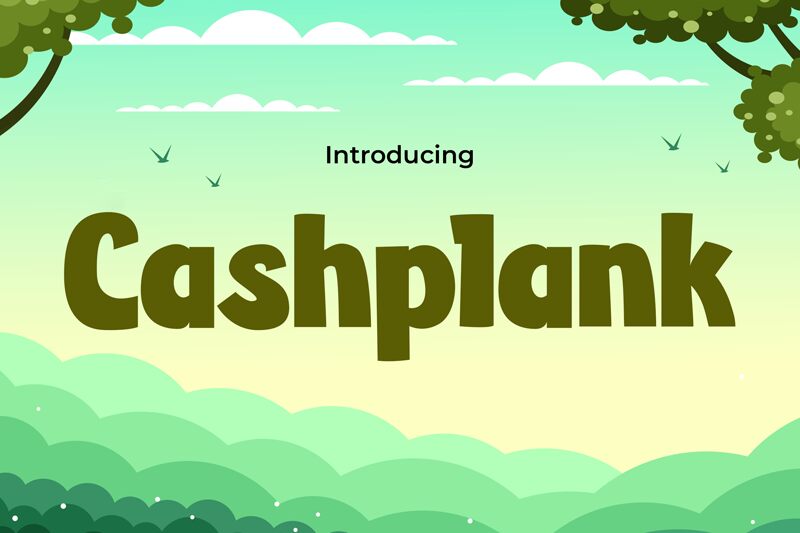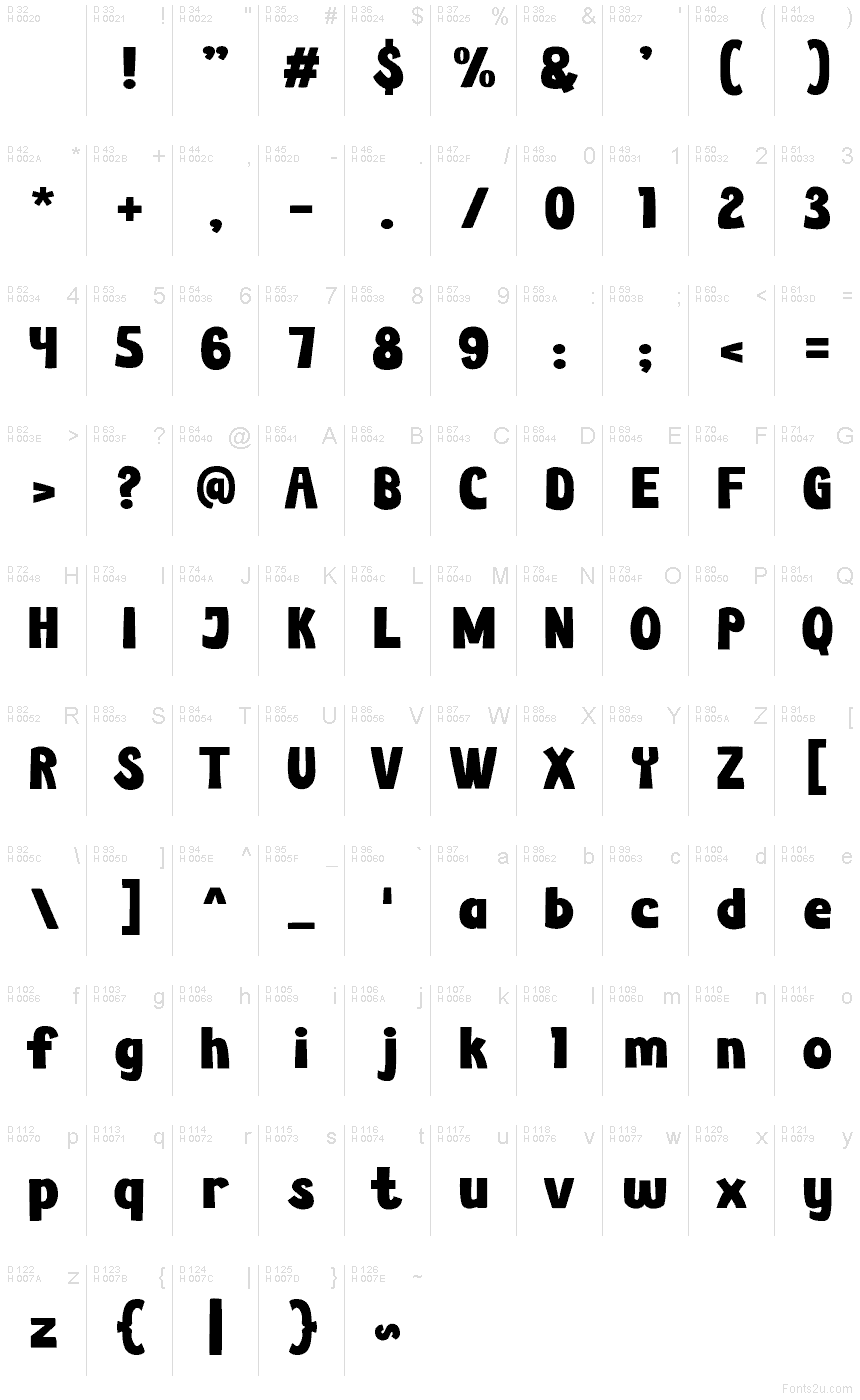
Cash-Plank
Cashplank font by Pinisiart is a free cartoon display font that solves a familiar headache: getting big, bubbly personality without sacrificing quick readability. Its chunky strokes, soft corners, and lively rhythm feel hand-cut and friendly, while the generous spacing keeps words from turning into a blob. The result is a bold, smiley headline face that still reads clean at a glance.
Using Cashplank, playful branding and loud moments come together naturally—think kids’ logos, game titles, snack packaging, birthday posters, YouTube thumbnails, and classroom handouts. This free font shines when set large and bold; pair it with a simple geometric sans for small details to let the gooey, bouncy forms take center stage.